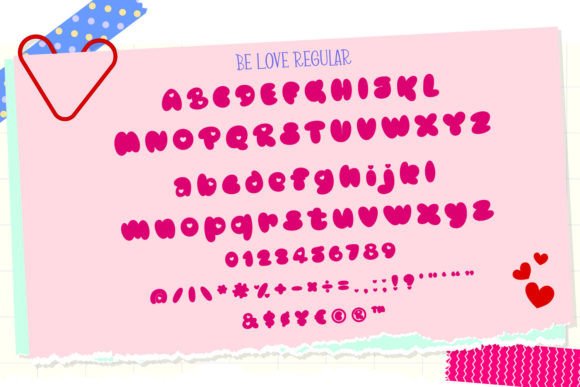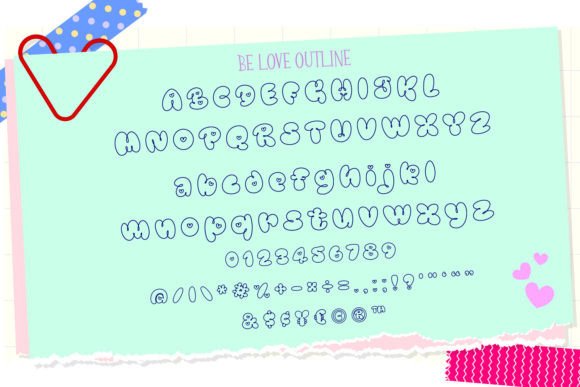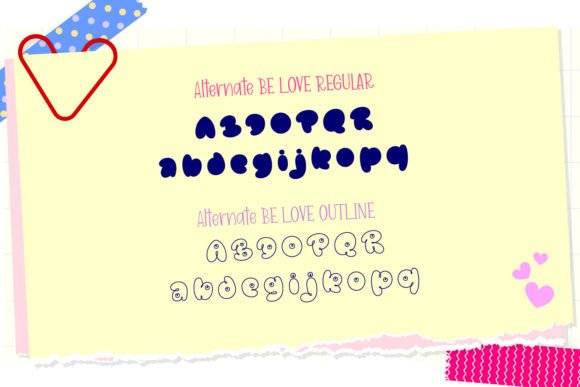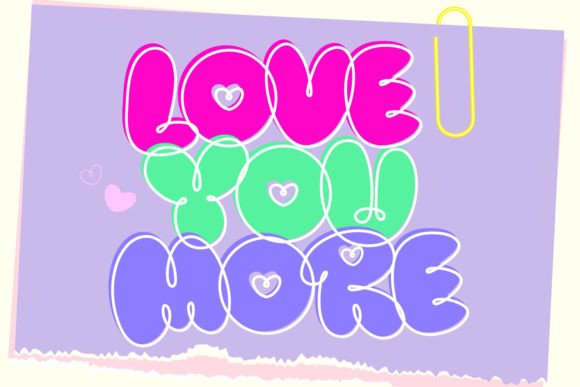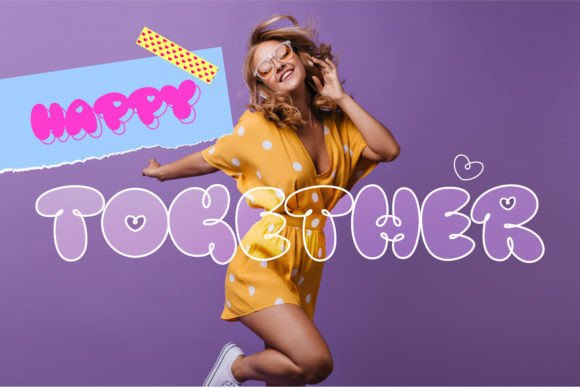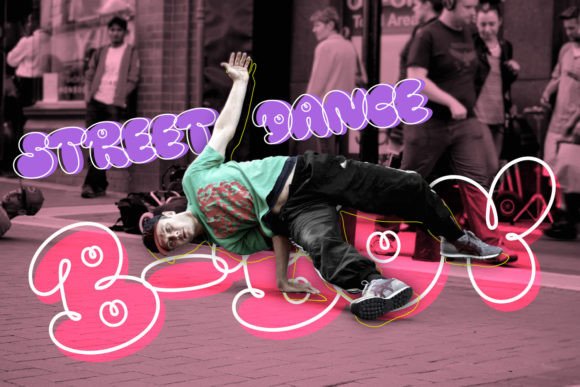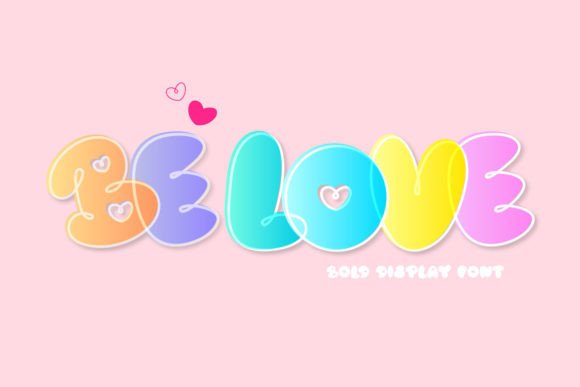
Introducing Be Love Font: The Ultimate Display Font for Playful and Authentic Designs
Are you looking for a font that exudes playfulness and authenticity? Do you want to add a touch of coolness and bubbliness to your designs? Look no further than Be Love Font! This amazing display font is perfect for creating stunning visuals for Valentine’s Day projects, street art fashion, T-Shirts, sportswear, logos, and more.
What Makes Be Love Font So Special?
Be Love Font is a unique and eye-catching display font that is sure to make your designs stand out. Its playful and authentic vibe makes it perfect for designers and crafters who want to add a personal touch to their work. The font’s bubbly and cool-looking design is sure to capture the attention of your audience and leave a lasting impression.
Perfect for Valentine’s Day Projects
Valentine’s Day is just around the corner, and Be Love Font is the perfect choice for creating romantic and playful designs. Whether you’re designing a Valentine’s Day card, gift tag, or social media post, this font is sure to add a touch of love and whimsy to your project. Its bold and playful design makes it perfect for headlines, titles, and short phrases.
Great for Street Art Fashion and Apparel
Be Love Font is not just limited to Valentine’s Day projects. Its cool and bubbly design makes it perfect for street art fashion and apparel designs. Use it to create stunning T-Shirt designs, sportswear, and other fashion accessories. The font’s bold and playful design is sure to make your designs stand out and appeal to a wide range of audiences.
Ideal for Logos and Branding
Be Love Font is not just a display font; it’s also a great choice for logos and branding. Its unique and eye-catching design makes it perfect for creating memorable and recognizable logos. Use it to create a logo that reflects your brand’s personality and values. The font’s playful and authentic vibe makes it perfect for brands that want to connect with their audience on a personal level.
Key Features of Be Love Font
- Cool-looking and bubbly display font
- Perfect for Valentine’s Day projects, street art fashion, and apparel designs
- Ideal for logos and branding
- Playful and authentic vibe
- Bold and eye-catching design
- Perfect for headlines, titles, and short phrases
Tips for Using Be Love Font
Here are some tips for using Be Love Font in your designs:
- Use it as a display font to add emphasis to your headlines and titles
- Pair it with other fonts to create a unique and interesting contrast
- Use it to create short and catchy phrases that capture the attention of your audience
Be Love Font is a unique and eye-catching display font that is perfect for designers and crafters who want to add a touch of playfulness and authenticity to their designs. Its cool-looking and bubbly design makes it perfect for Valentine’s Day projects, street art fashion, and apparel designs. Use it to create stunning logos, branding, and marketing materials that capture the attention of your audience and leave a lasting impression.